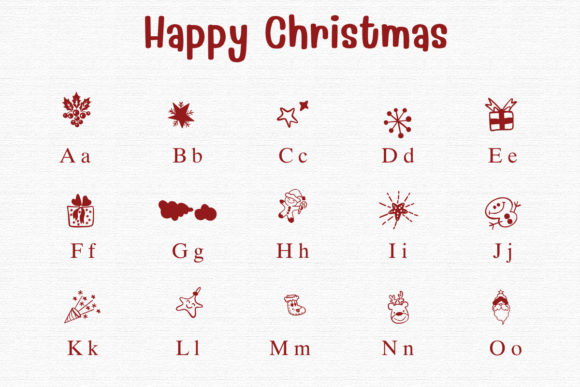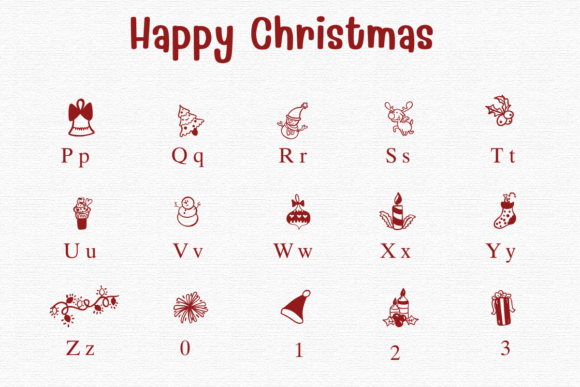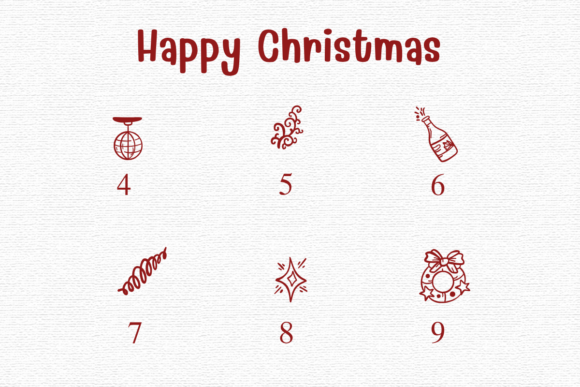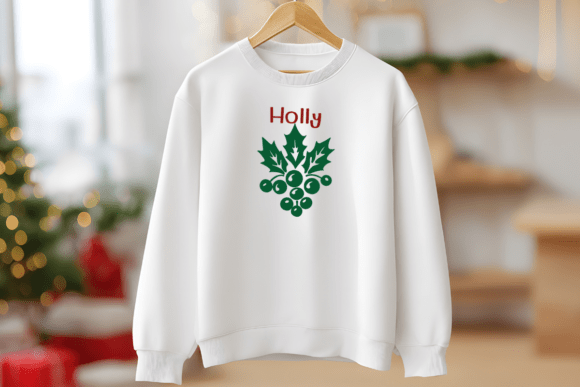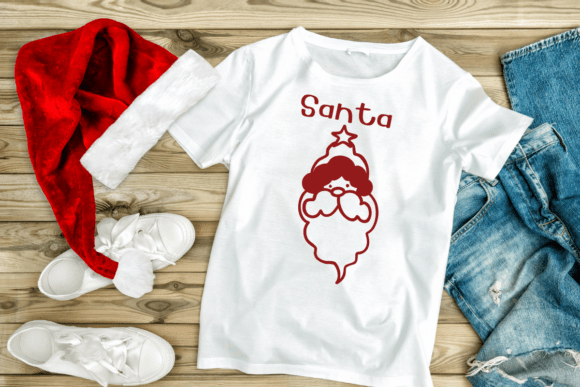
Happy Christmas Font: A Festive Dingbats Font for Your Holiday Projects
Are you looking for a fun and playful font to add some holiday cheer to your designs? Look no further than the Happy Christmas font! This adorable dingbats font is perfect for designers and crafters who want to add a touch of whimsy and festivity to their projects. In this article, we’ll take a closer look at the Happy Christmas font, its features, and how you can use it to create amazing holiday designs.
What is Happy Christmas Font?
Happy Christmas font is a dingbats font, which means it’s a font that features symbols, icons, and graphics instead of letters and numbers. This font is specifically designed for the holiday season, featuring a wide range of Christmas-themed icons, including snowflakes, trees, bells, and more. The font is highly versatile and can be used for a variety of projects, from holiday cards and invitations to decorations and crafts.
Features of Happy Christmas Font
The Happy Christmas font has several features that make it a great addition to your design toolkit. Here are a few:
- Adorable designs: The font features a wide range of cute and festive designs that are sure to bring a smile to anyone’s face.
- Highly versatile: The font can be used for a variety of projects, from digital designs to print projects.
- Scalable: The font is highly scalable, which means it can be used for projects of all sizes, from small icons to large banners.
Ideas for Using Happy Christmas Font
The Happy Christmas font is highly versatile, and there are many ways you can use it to create amazing holiday designs. Here are a few ideas to get you started:
- Holiday cards: Use the font to create adorable holiday cards for friends and family.
- Invitations: Create festive invitations for holiday parties and events.
- Decorations: Use the font to create holiday decorations, such as garlands and banners.
- Crafts: Add the font to your craft projects, such as scrapbooking and DIY gifts.
- Digital designs: Use the font to create digital designs, such as social media graphics and holiday-themed wallpapers.
- Experiment with sizes: Don’t be afraid to experiment with different sizes and colors to add visual interest to your designs.
- Combine with other fonts: Combine the Happy Christmas font with other fonts to create unique and interesting designs.
- Use for non-holiday projects: While the font is designed for the holiday season, it can also be used for non-holiday projects, such as birthday cards and party invitations.
The Happy Christmas font is a fun and playful dingbats font that’s perfect for designers and crafters who want to add some holiday cheer to their projects. With its adorable designs, ease of use, and high versatility, this font is sure to become a favorite in your design toolkit. So why wait? Download the Happy Christmas font today and start creating amazing holiday designs!